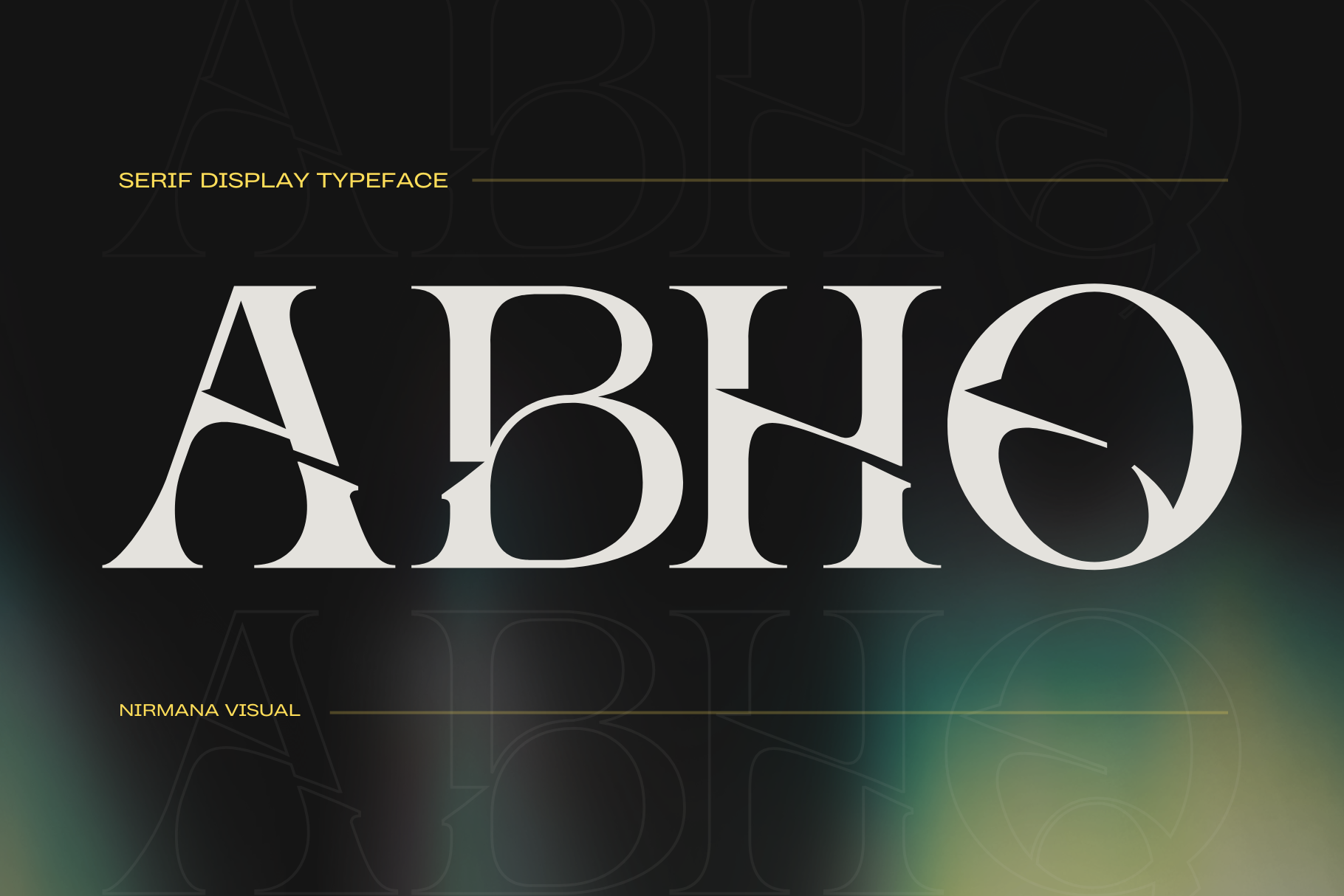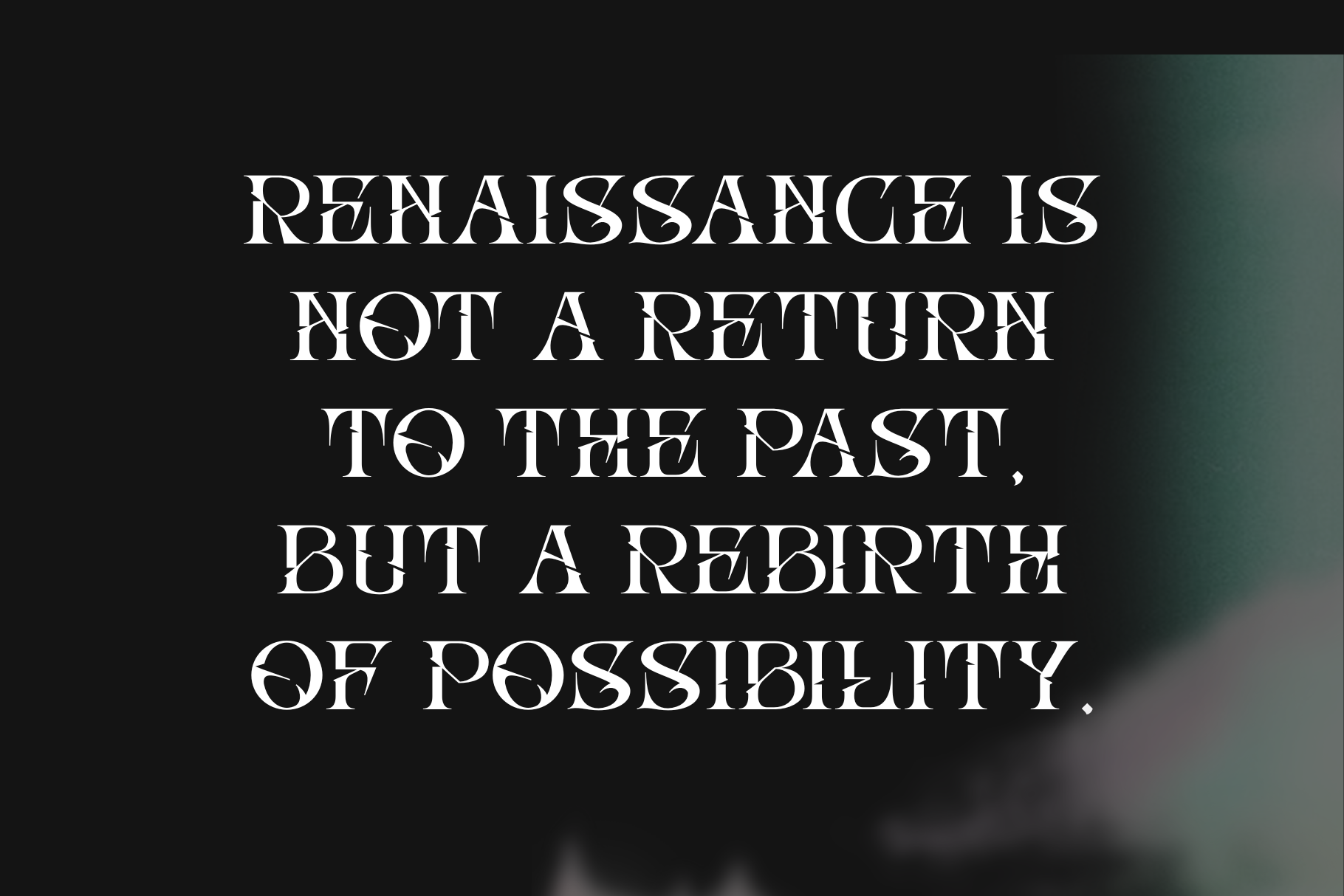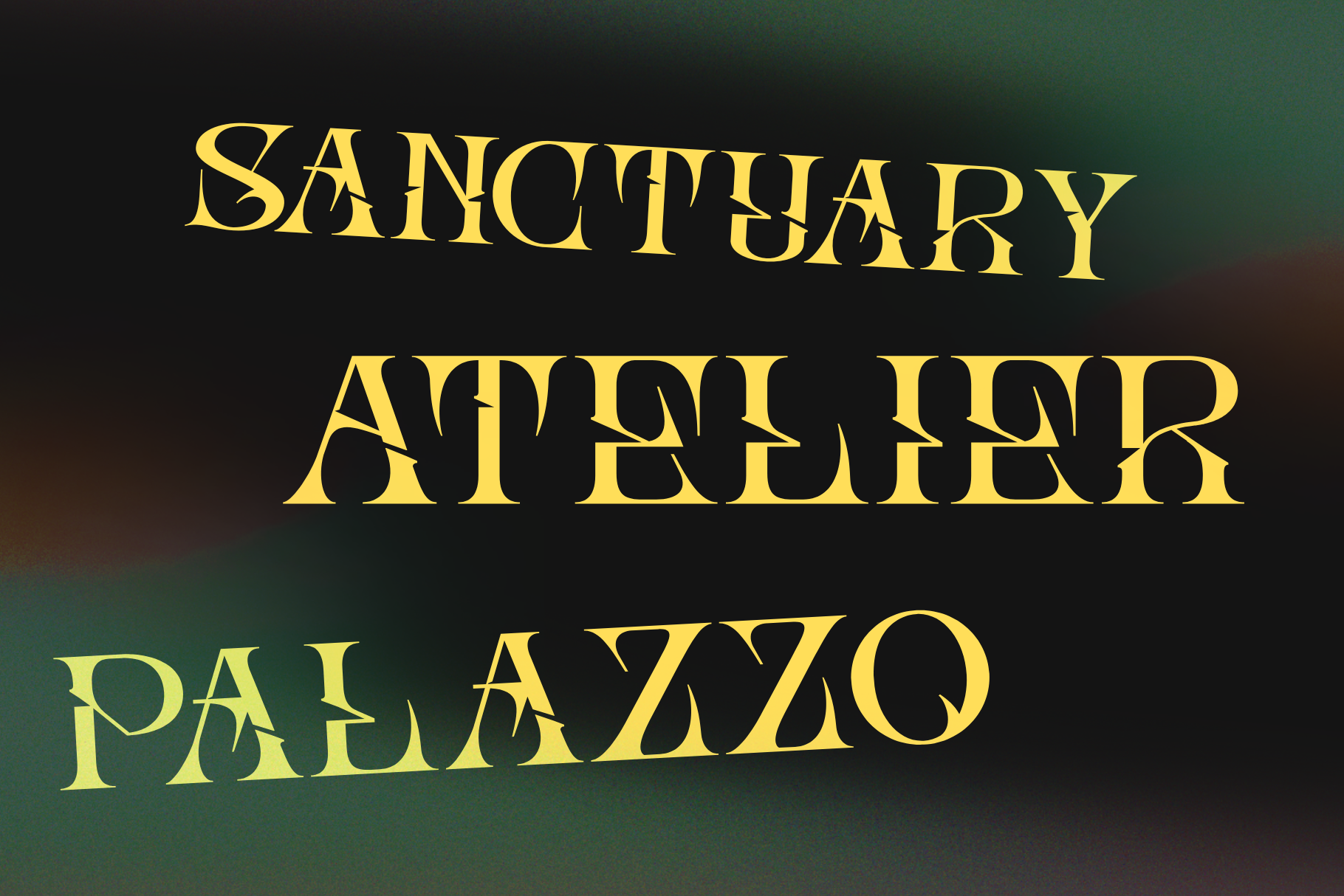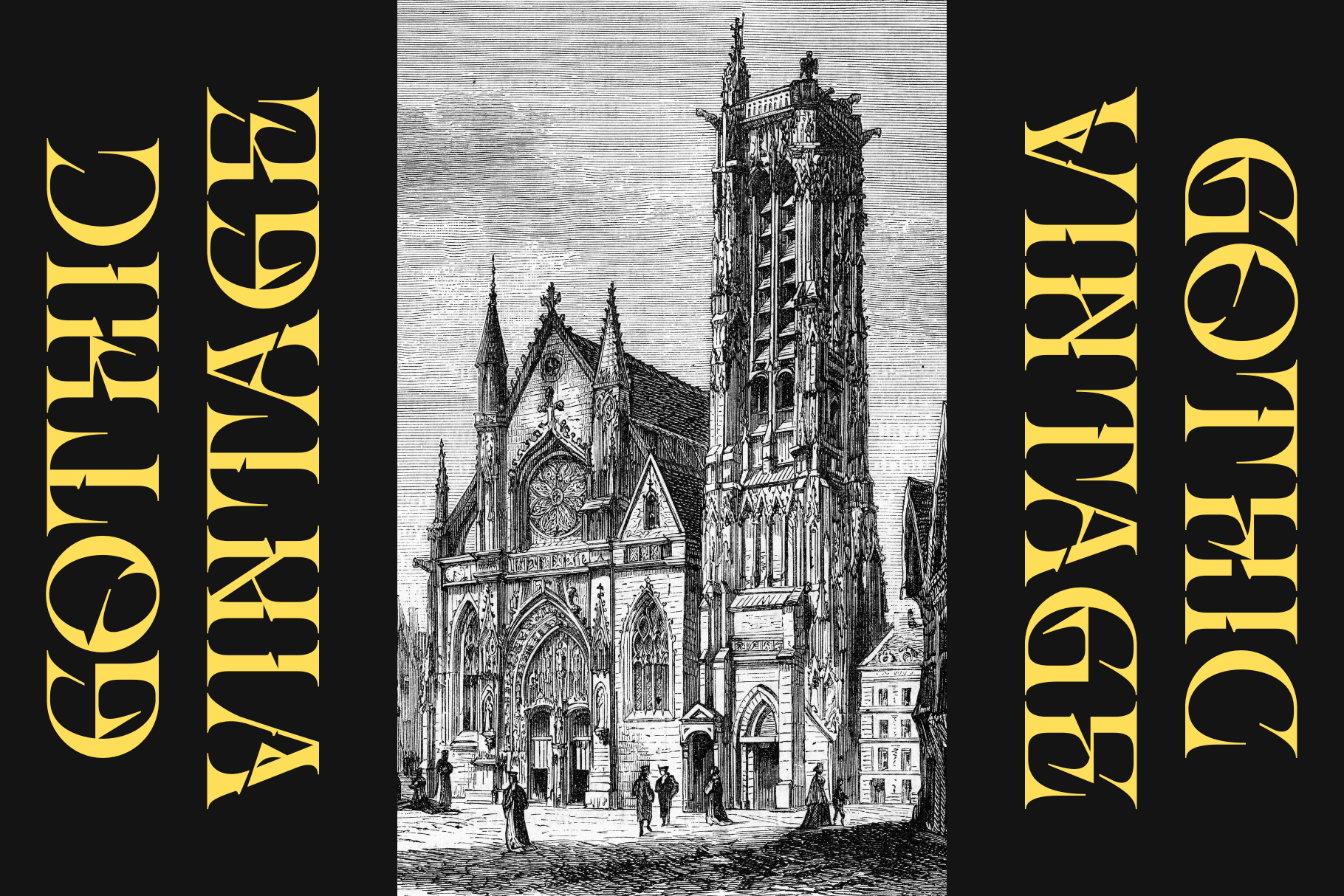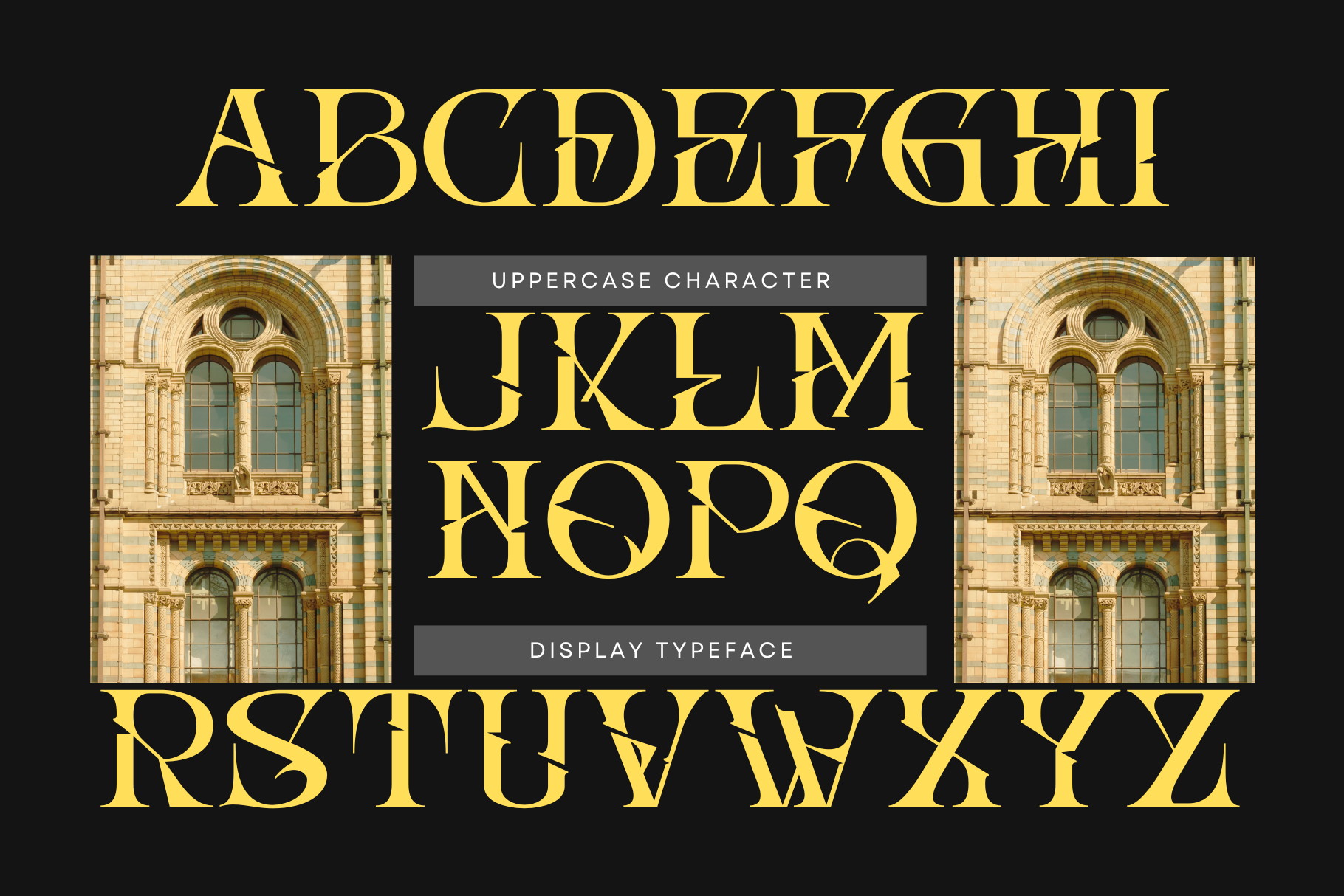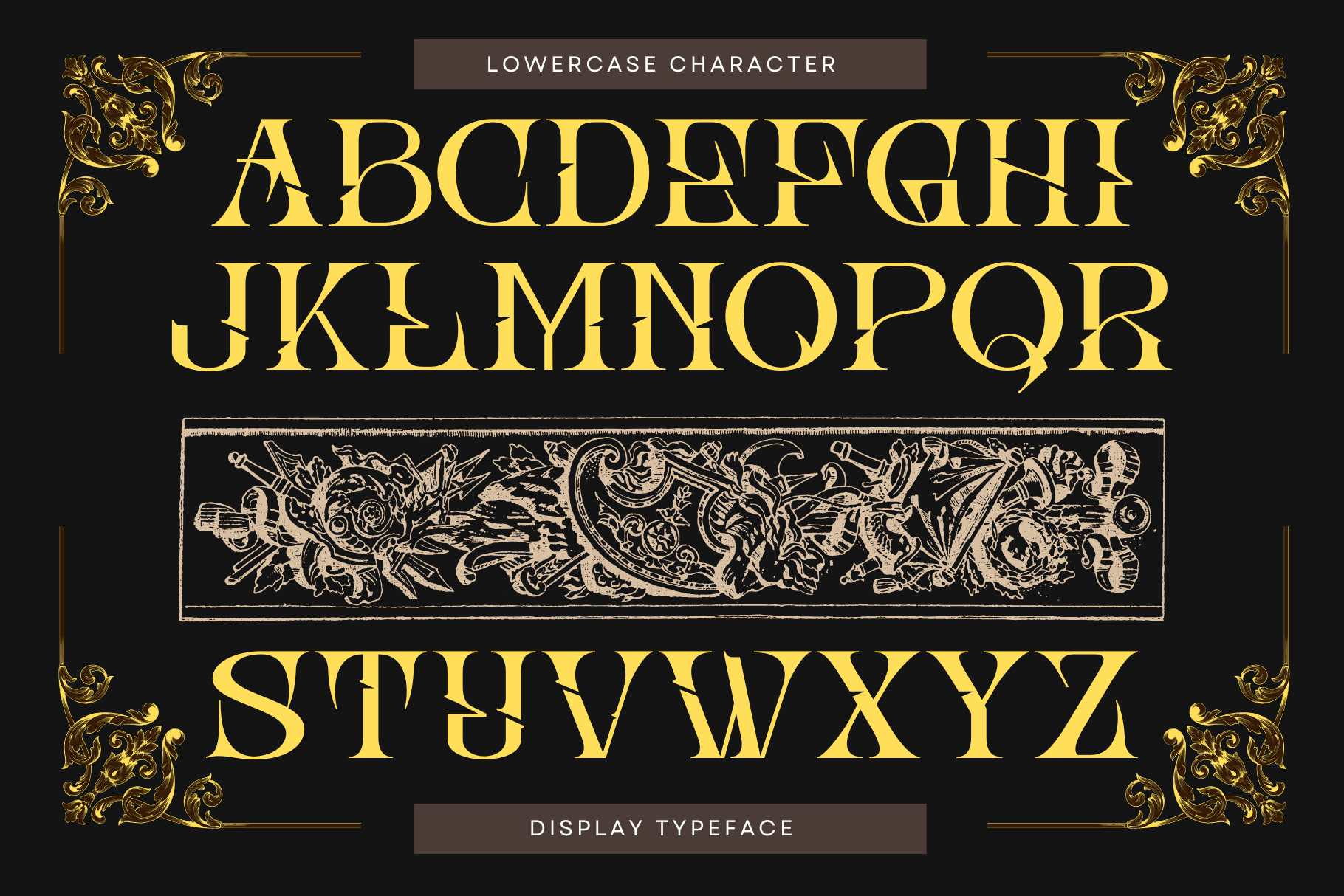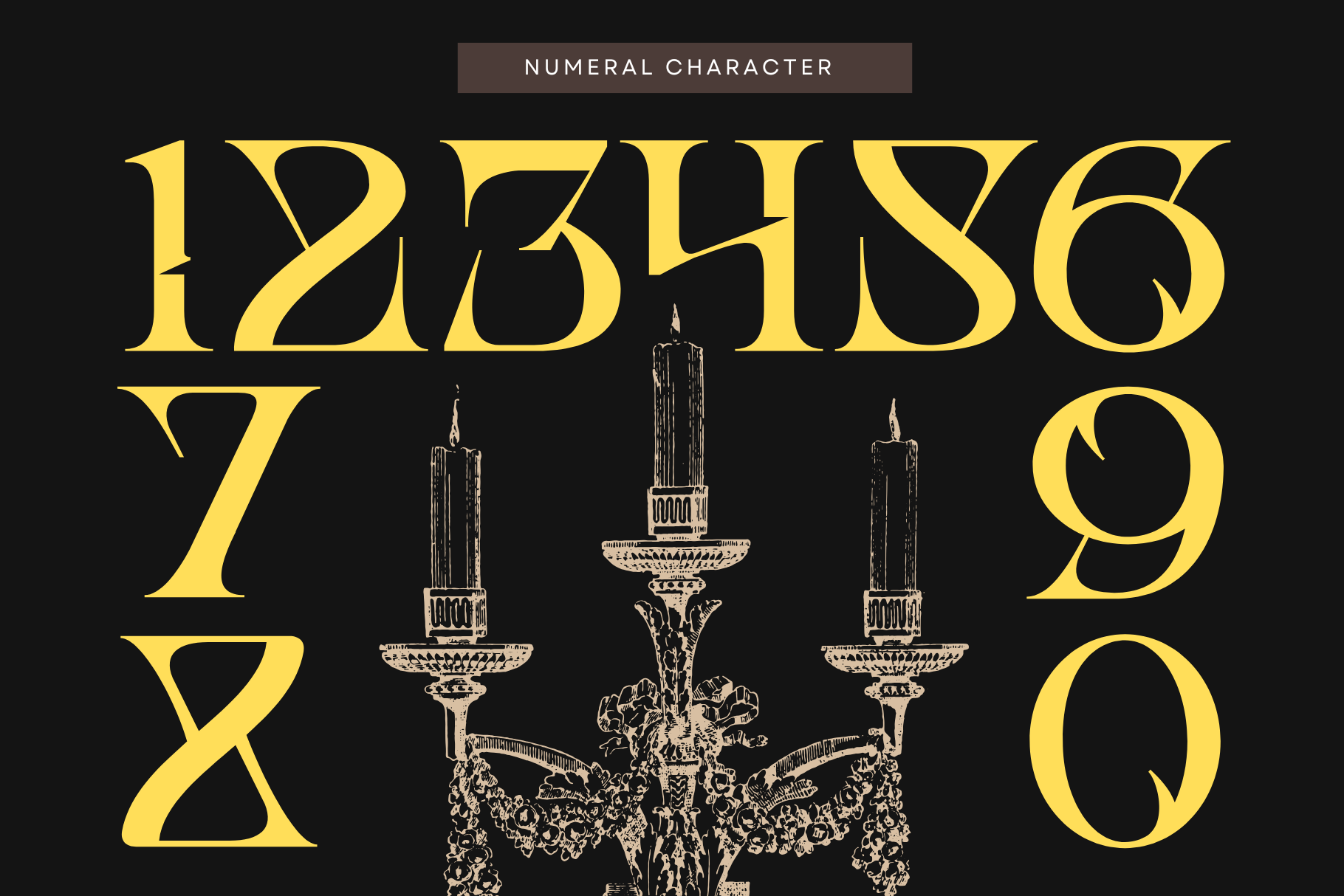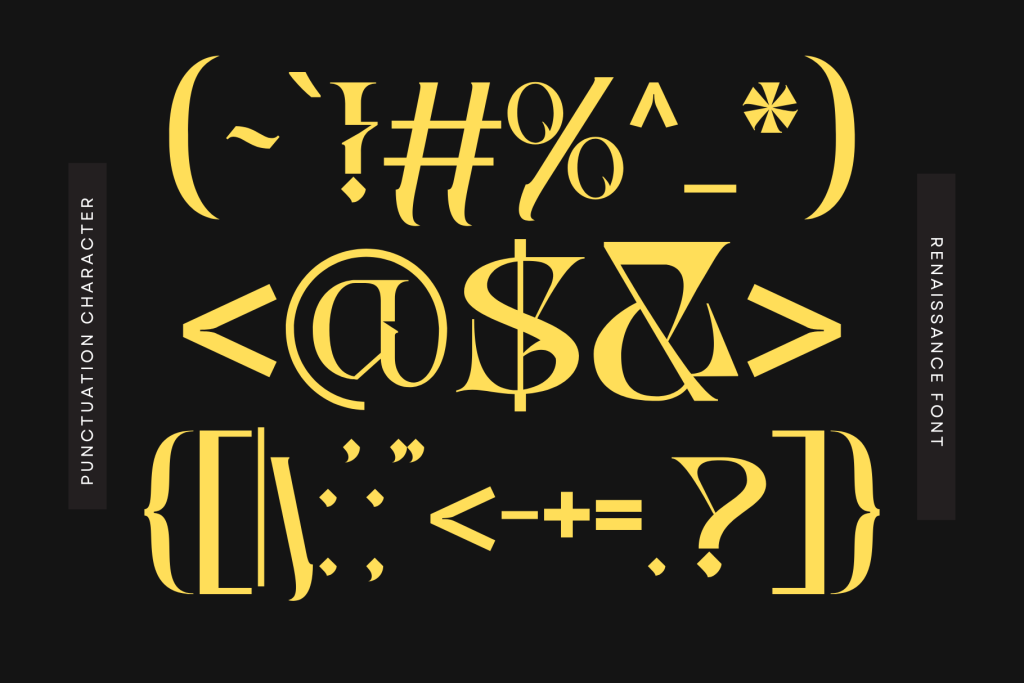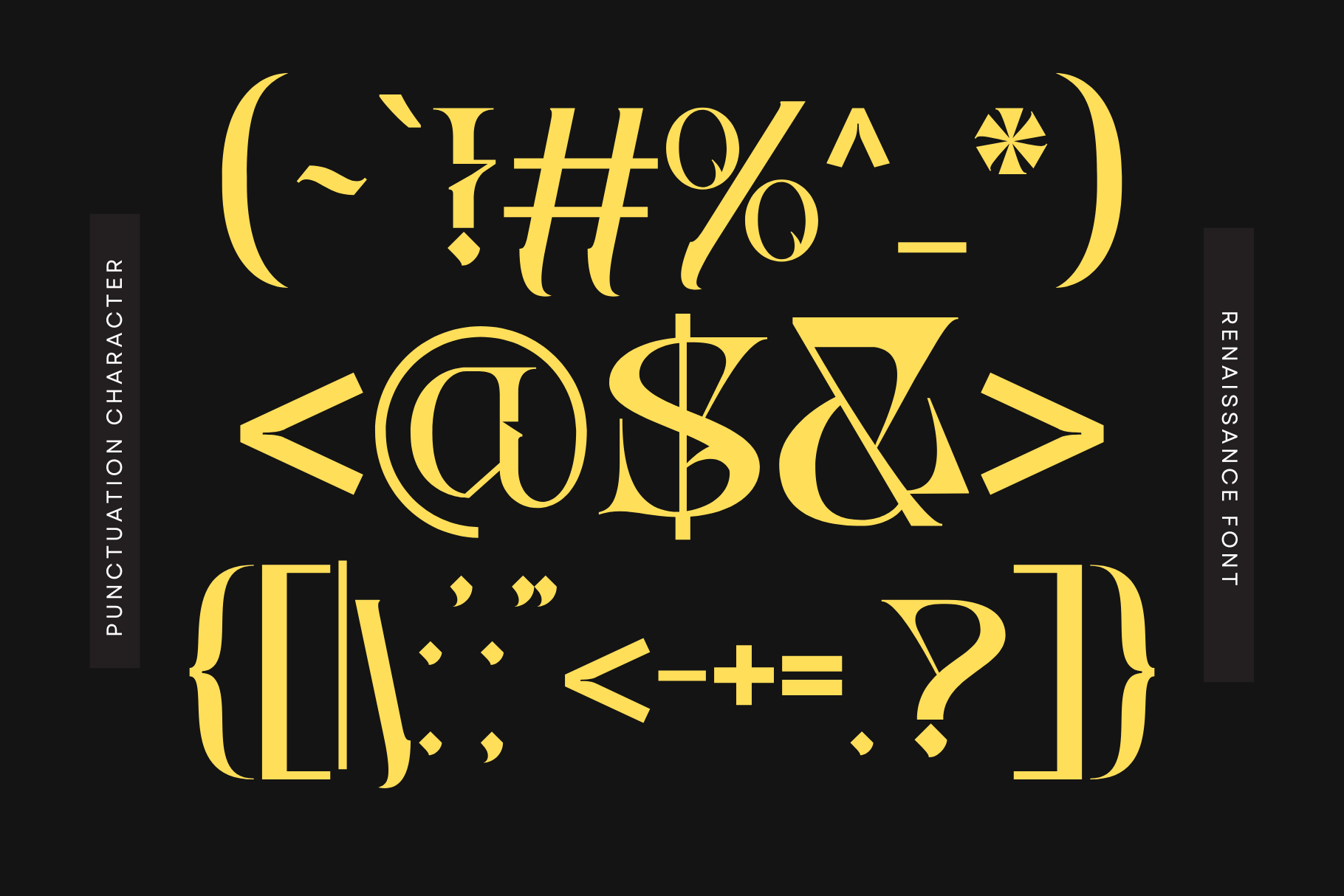
Abho Luxury is a refined modern serif display font that exudes elegance and sophistication. Designed for high-end branding, it features stylish letterforms with a luxurious flair. Available in both Regular and Italic styles, Abho Luxury is perfect for logos, fashion headlines, and premium packaging. Its timeless aesthetic blends classic serifs with a contemporary touch, making every design feel exclusive and upscale.